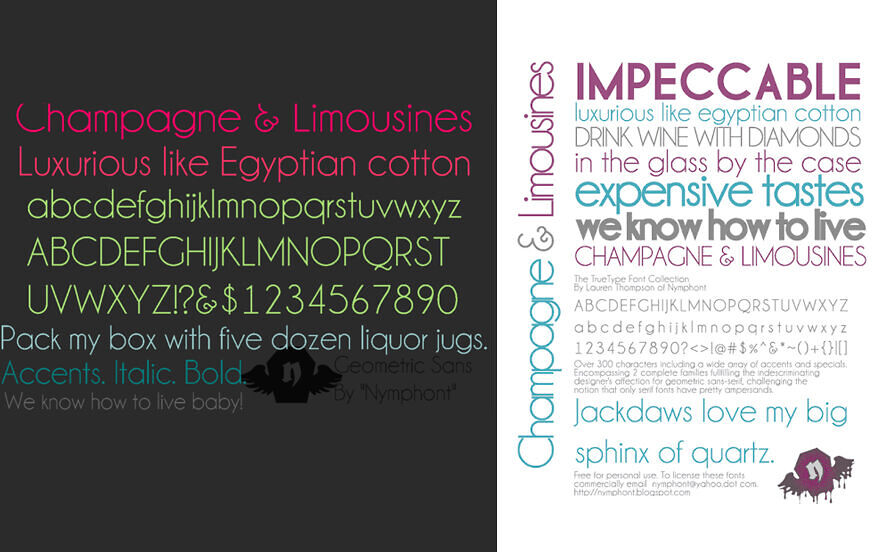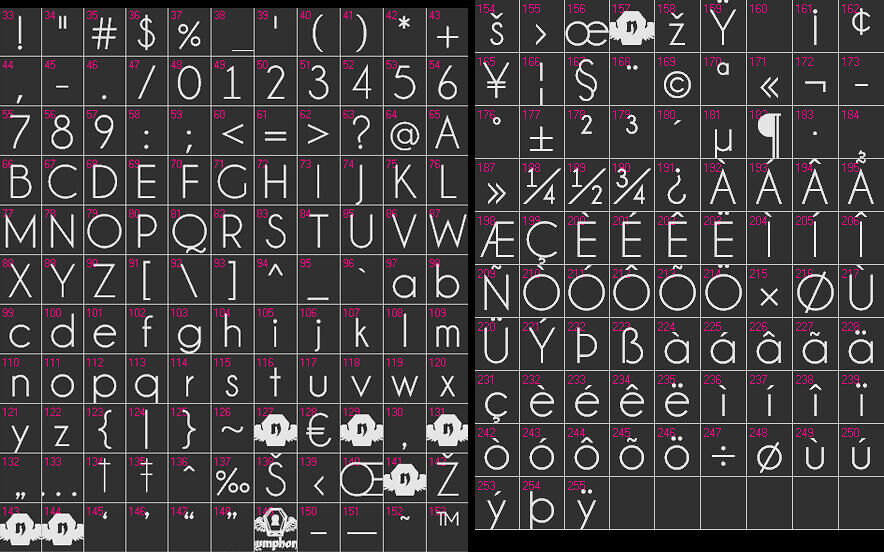
Champagne & Limousines Font by Lauren Thompson is a sleek, geometric sans-serif typeface exuding modern elegance. Its clean lines and smooth, rounded edges offer a sophisticated yet approachable feel.
Available in four styles—Regular, Bold, Italic, and Bold Italic—this versatile font suits everything from invitations to branding. The airy letterforms and subtle curves lend a touch of luxury, making it ideal for stylish headlines or minimalist designs. Free for personal use, it reflects Thompson’s knack for blending contemporary flair with timeless appeal.